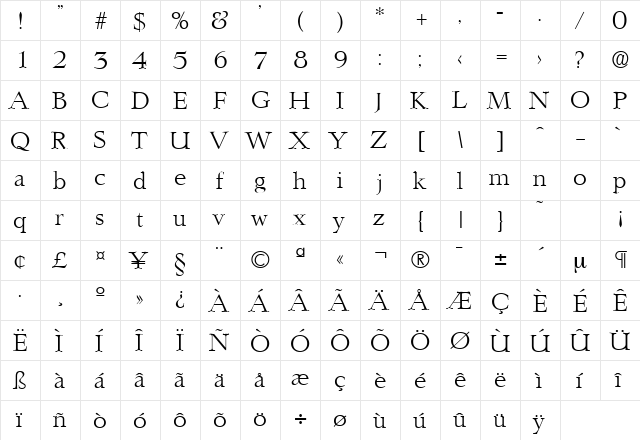
Lingwood-Serial-Light Regular
Design Context for Lingwood-Serial-Light Typeface
Lingwood-Serial-Light echoes the hand-painted signage and woodblock typography of the American frontier, with a warm, rugged personality. The delicate stroke weight brings airiness and refinement to layouts.
Perfect for barbecue restaurants, country music branding, vintage poster design, and rustic packaging.
Font Pairing: Combine Lingwood-Serial-Light with a simple slab or neutral sans — period-accurate companions reinforce the vintage feel without competing for attention.
Pro Tip: Pair Lingwood-Serial-Light with aged textures or distressed backgrounds to amplify its vintage personality.